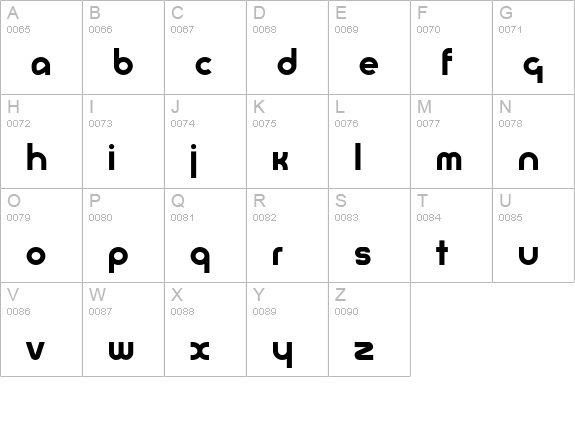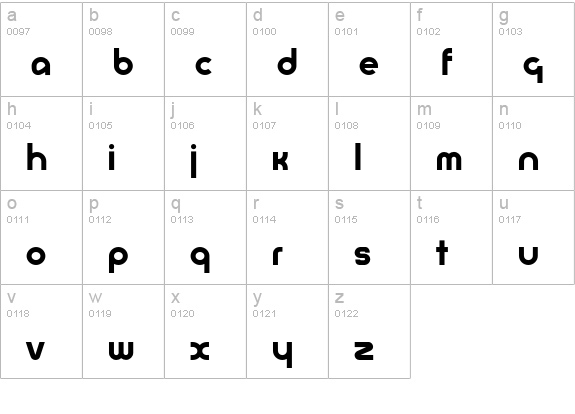
P22Bayer-Universal Font Details
P22Bayer-Universal is a versatile and modern font that seamlessly combines elements of precision and elegance. This typeface is the perfect choice for various design projects, whether it be for print or digital mediums. With its clean lines and balanced proportions, P22Bayer-Universal exudes a sense of professionalism and sophistication. With an extensive character set, this font allows for a wide range of design possibilities. From headlines to body text, P22Bayer-Universal maintains legibility and readability at any size. Its refined letterforms and meticulous attention to detail make it a standout choice for corporate branding, editorial layouts, and advertising campaigns. One of the most remarkable features of P22Bayer-Universal is that it is available for free. This means that designers and creatives can easily access this typeface without any financial constraints. It can be freely downloaded at FontsMarket.com, a trusted and reliable source for high-quality fonts. The versatility of P22Bayer-Universal extends to its language support, as it includes an extensive range of characters to accommodate various languages and international typographic conventions. This font is designed to cater to the needs of a global audience, making it a valuable asset for designers working on multicultural projects. P22Bayer-Universal is a font that effortlessly combines form and function. Its timeless design and easy accessibility make it a go-to choice for designers seeking a reliable and visually appealing typeface. Whether used for branding, packaging, or web design, P22Bayer-Universal is sure to elevate any project with its refined aesthetic and user-friendly nature.